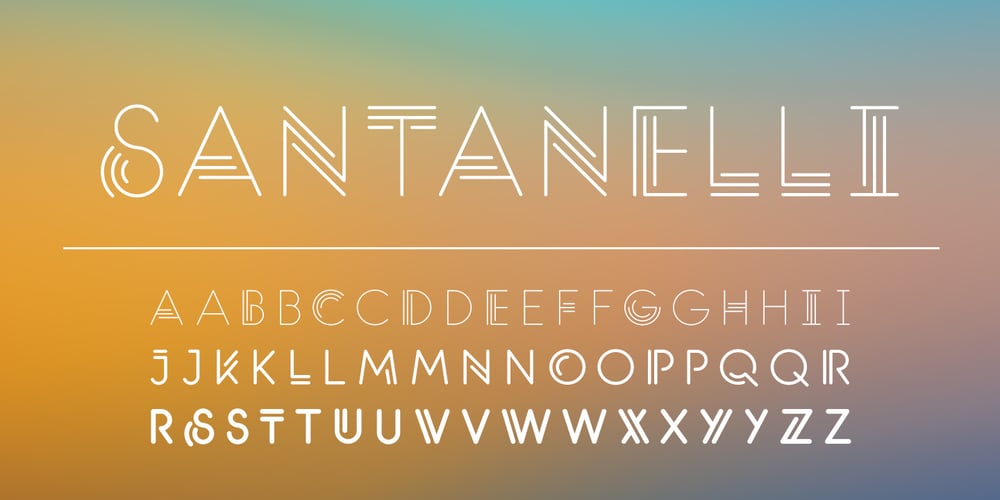
Santanelli Font Family was designed by Gilberto Moya Perona and published by Pisto Casero. Santanelli contains 3 styles and family package options. Santanelli is a rounded all caps display typeface. It is intended to be used in posters, editorial headlines and logotypes. It comes in three weights: Thin, Medium and Bold. Each letter has been designed with two different styles or flavors: decorative and clean. You can access each of them by typing uppercase and lowercase respectively. These two styles fit perfectly when combined within the same word or message.